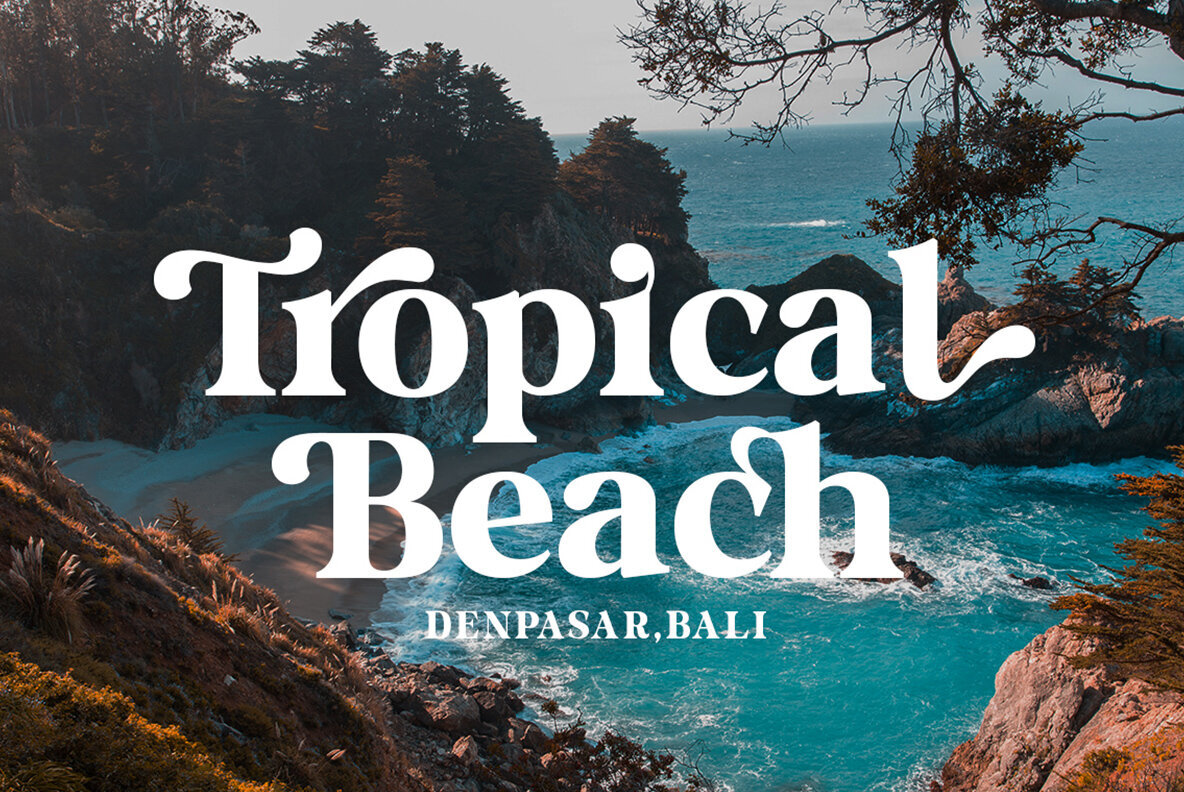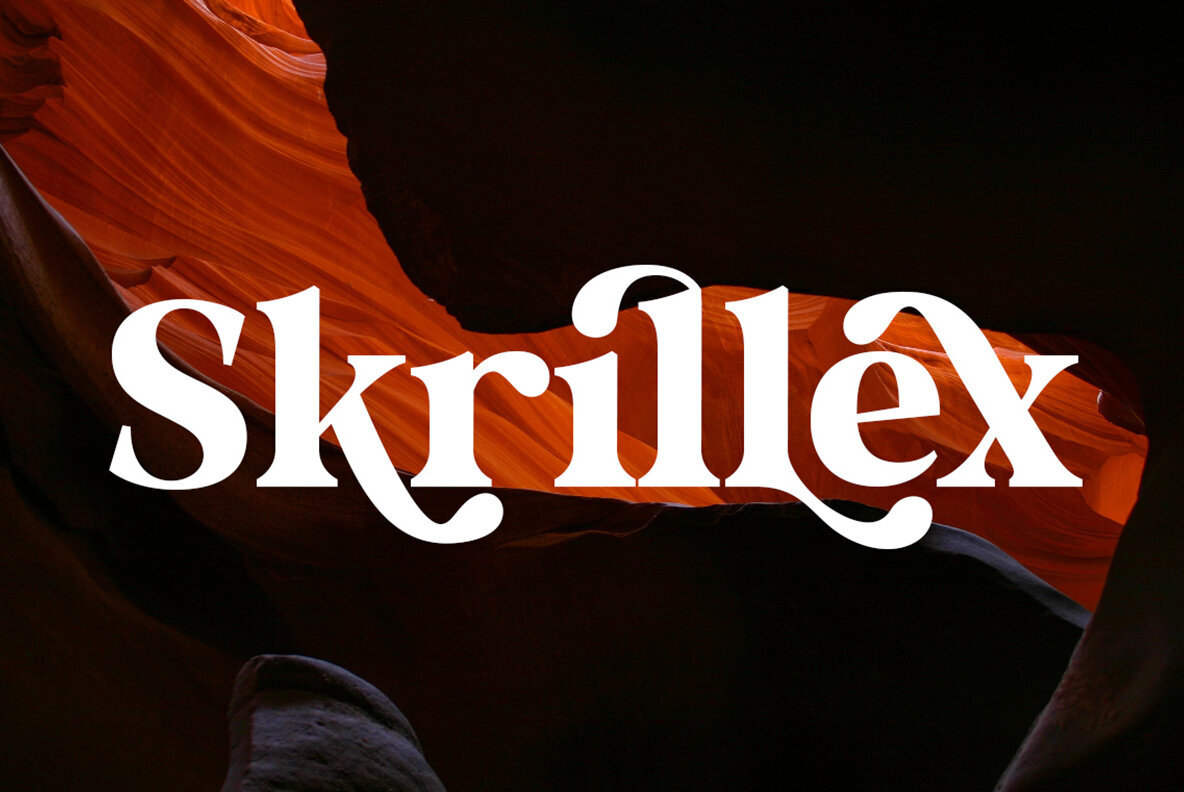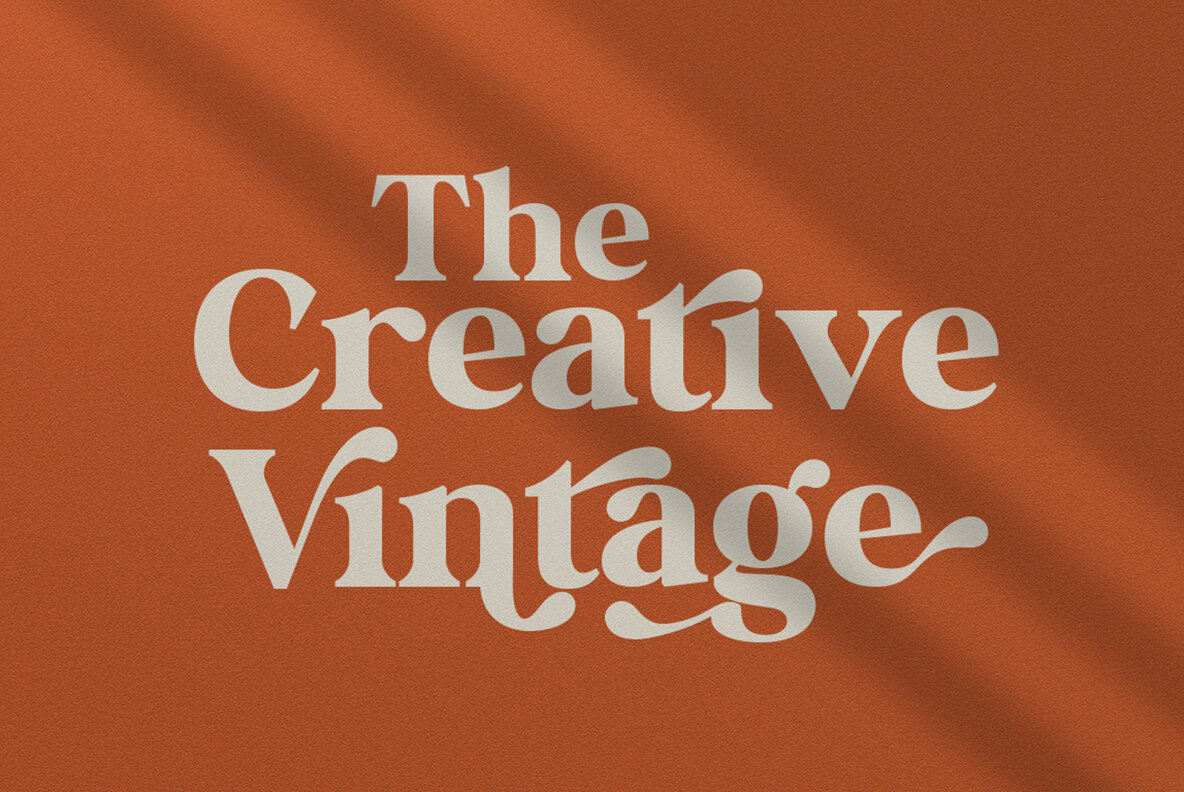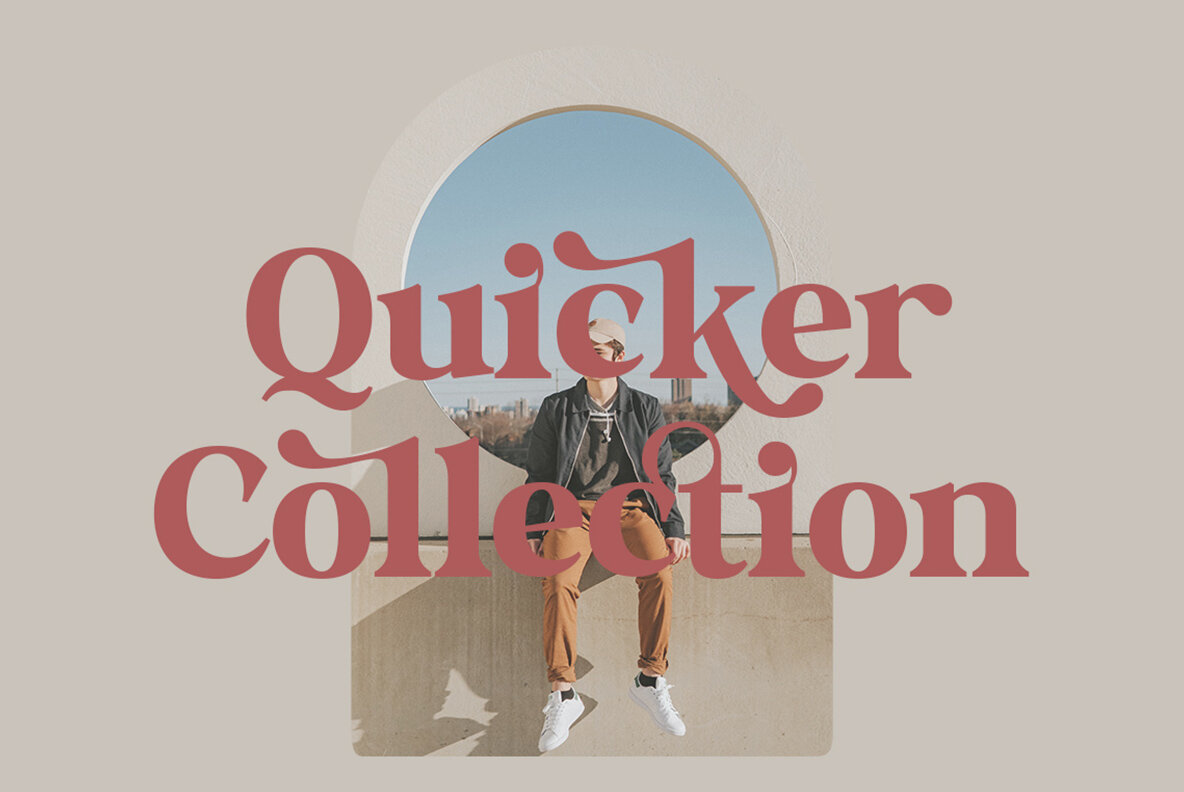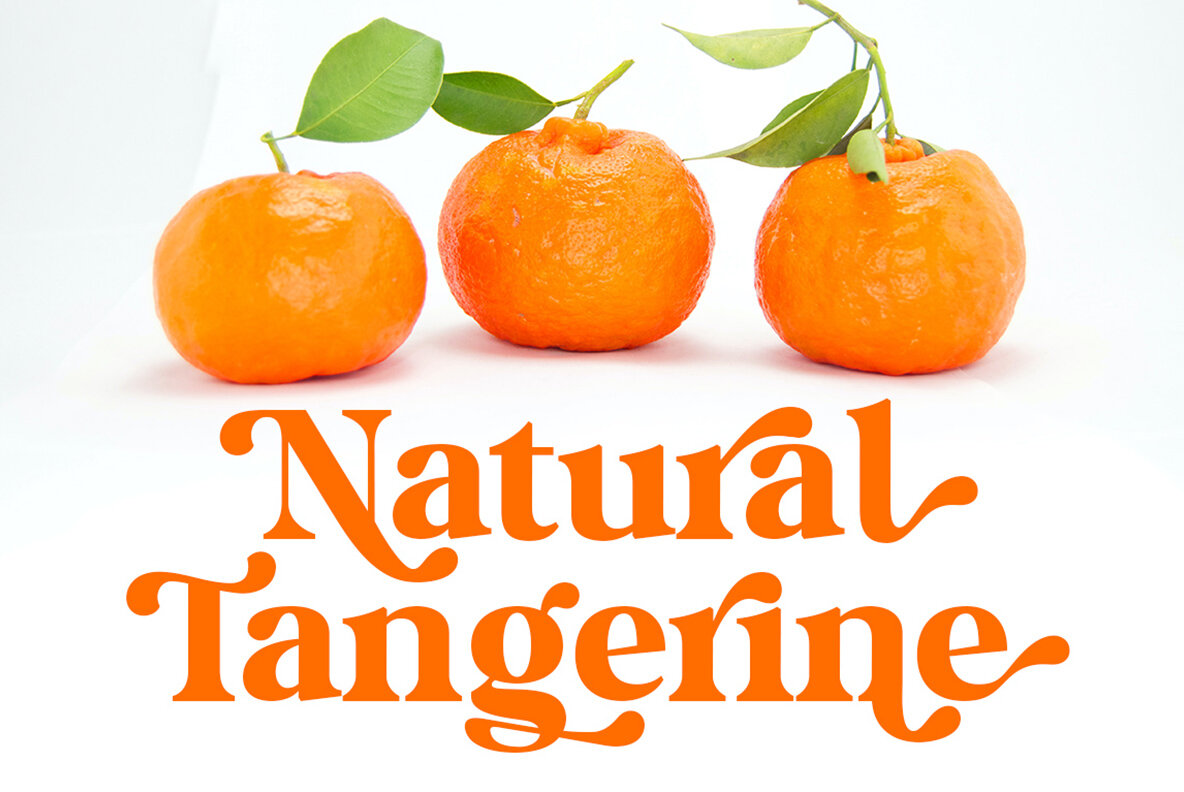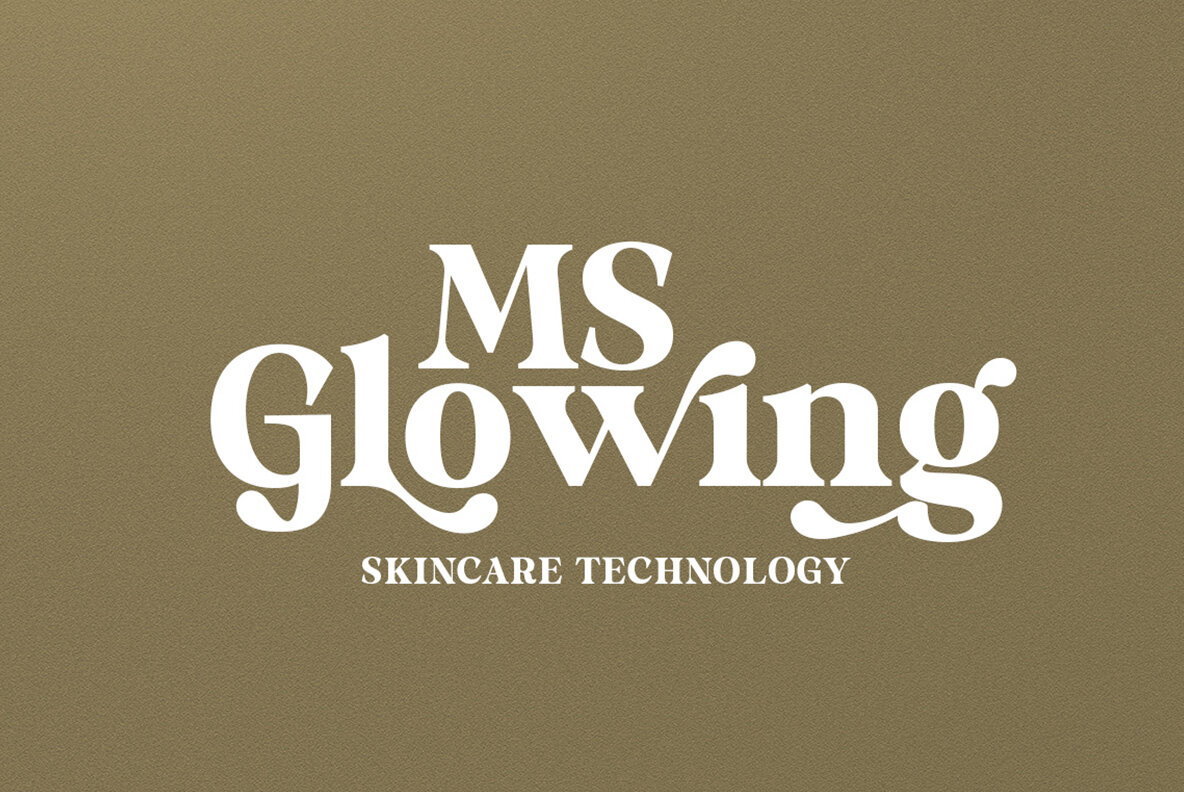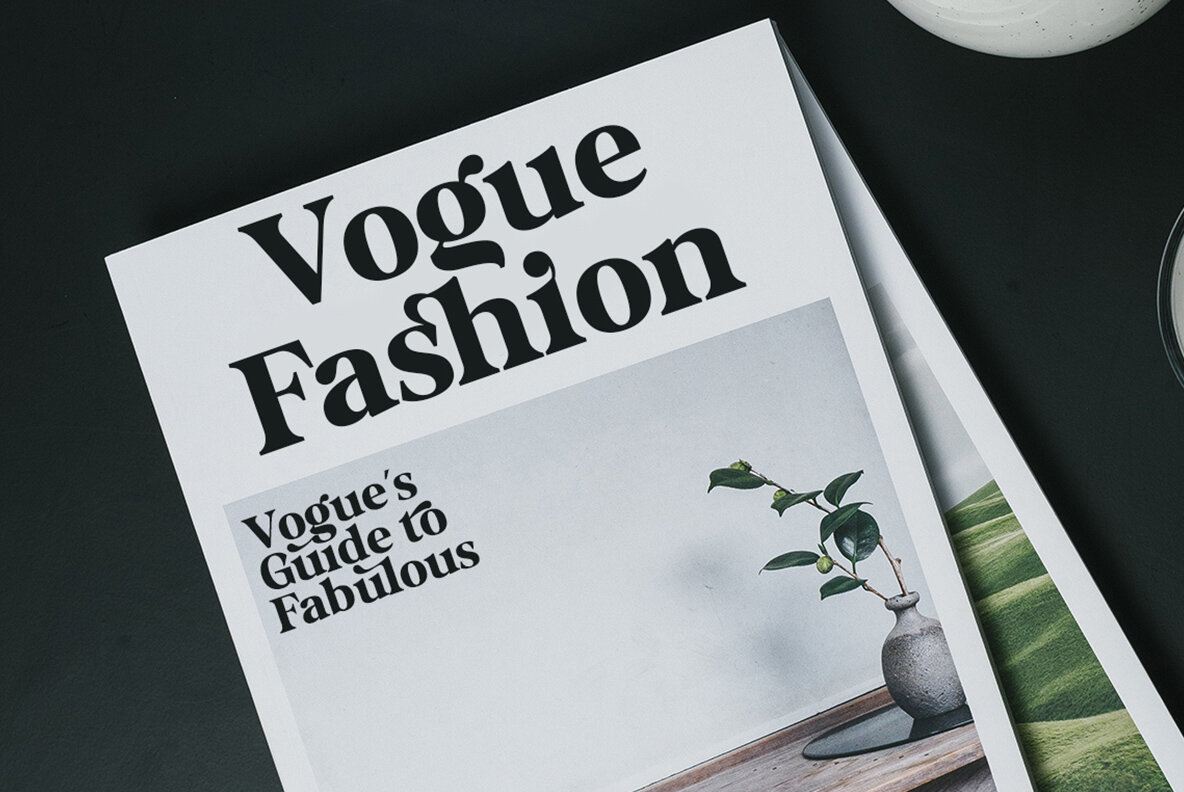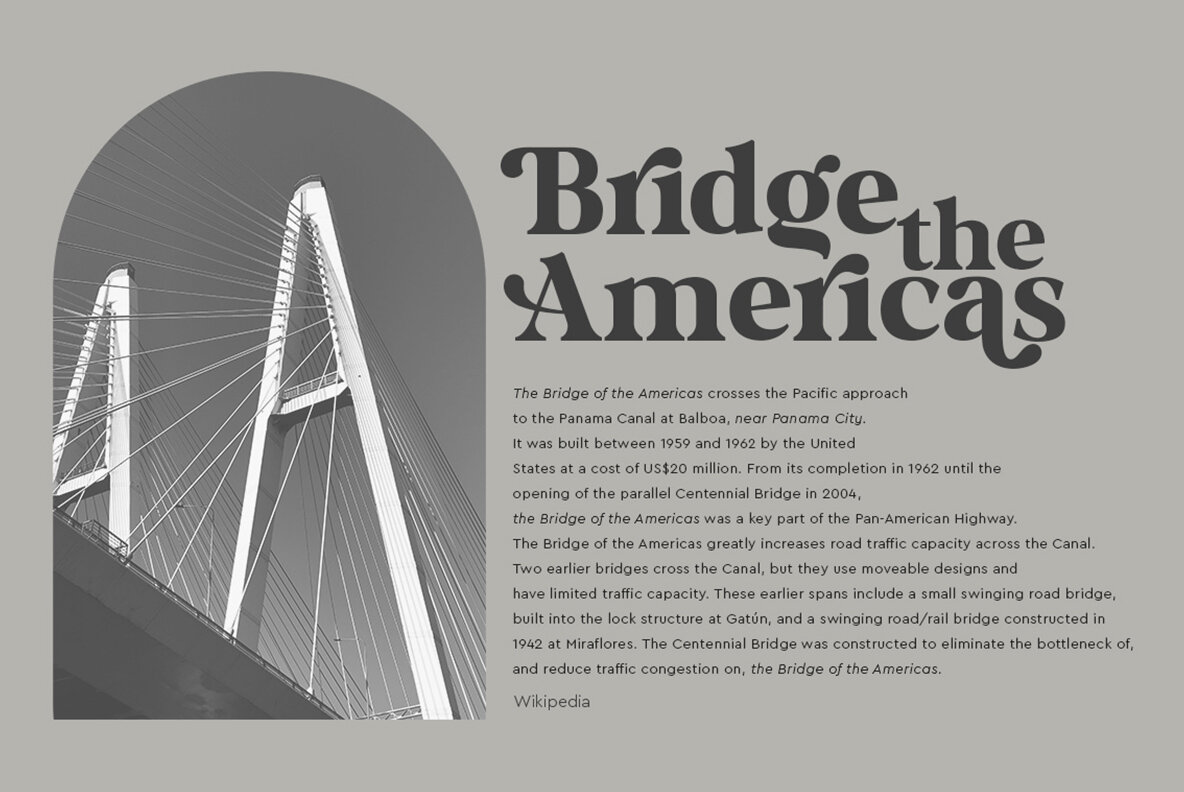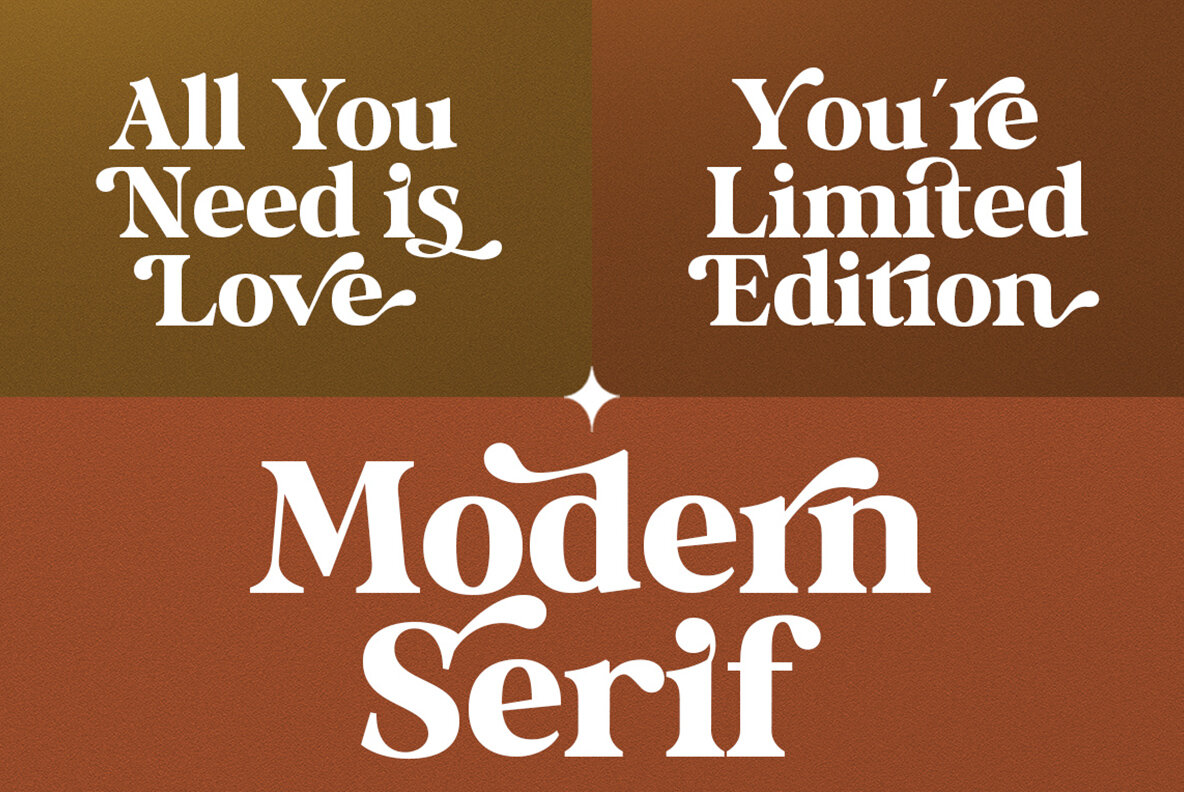
Milk And Honey Font
Milk And Honey Regular
Milk And Honey is a sophisticated modern-vintage serif font, authored meticulously by the fine craftsmanship of renowned designer, Gatype. Rooted in the classic aesthetic, this offering deftly blends contemporary elements to create a unique visual impact. Quintessentially versatile, Milk And Honey embodies a chic and classy style, perfect for creators aiming to add distinction to their designs and projects. The product offers OpenType feature access, opening the door to a large selection of alternate fonts and ligatures, a creative playground for the discerning designer. Whether it's for small font variations or larger more bold fonts needed in your design arsenal, Milk And Honey takes customization to a new level. It's not just a font; it's a versatile tool that offers you the ultimate control over your design narrative. Embrace the power of Milk And Honey and let your graphic designs speak volumes.Discover Milk And Honey: Your Ultimate Companion for Exceptional Graphic Design